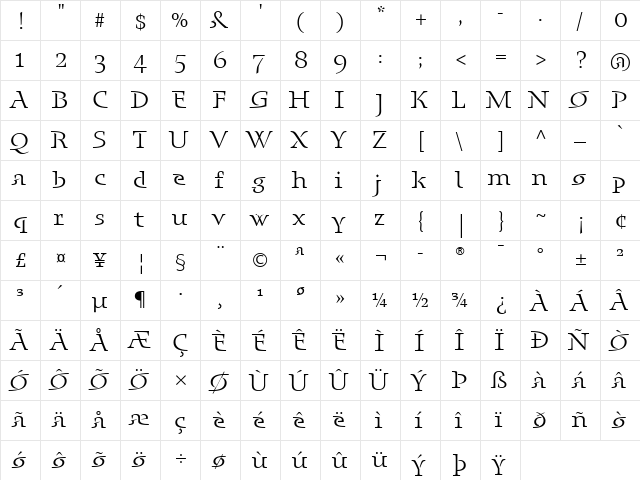
BlueIsland Regular
Design Context for BlueIsland Typeface
BlueIsland takes a measured approach to typography — its balanced proportions and neutral character make it a reliable workhorse for both digital and print work.